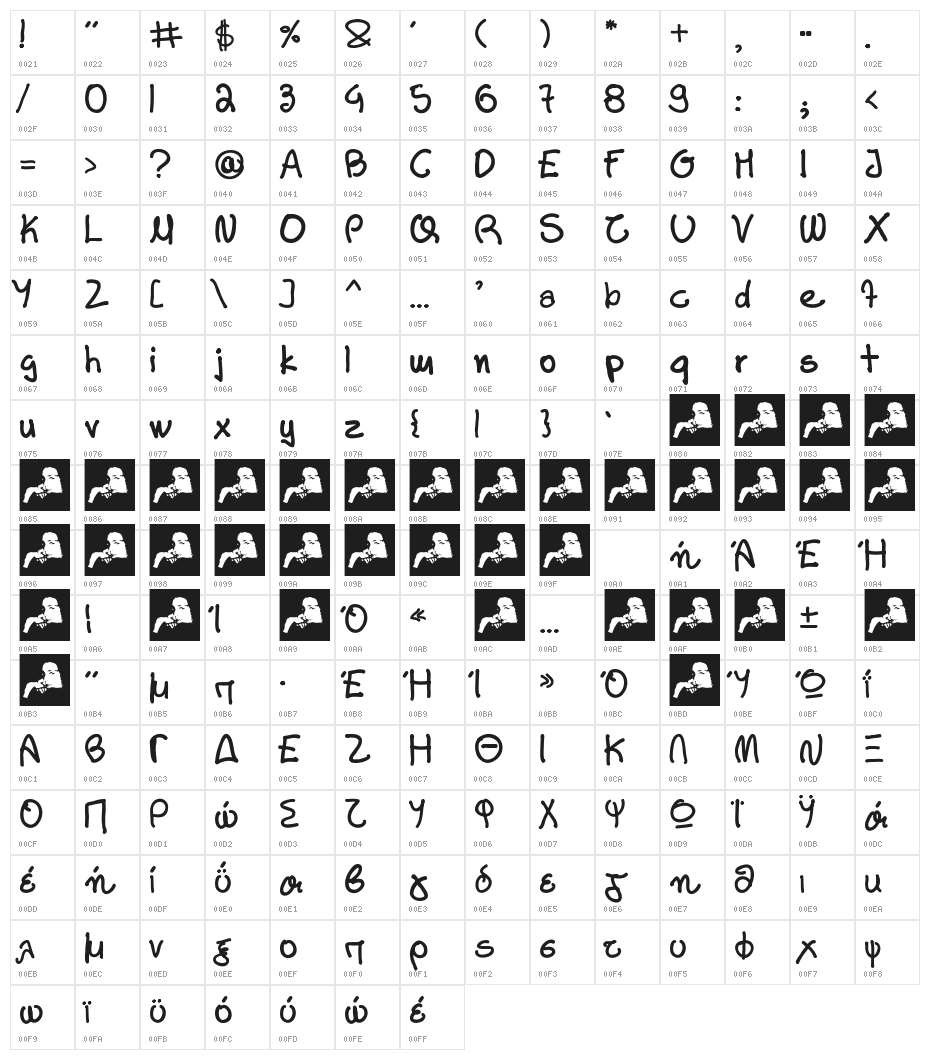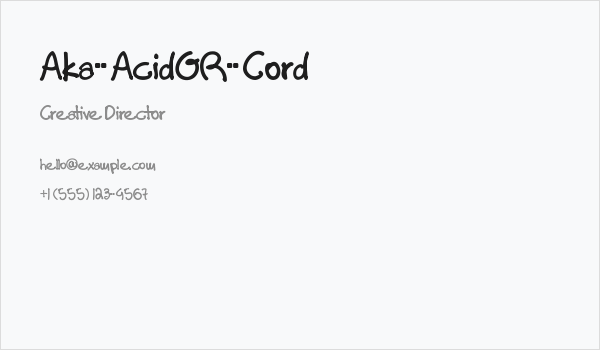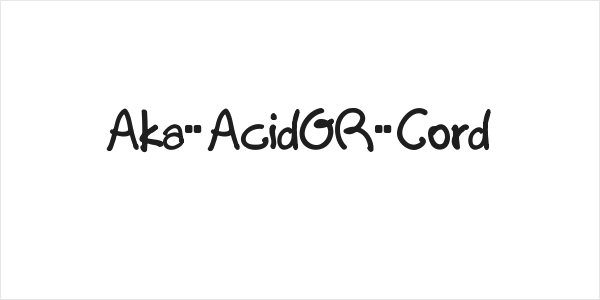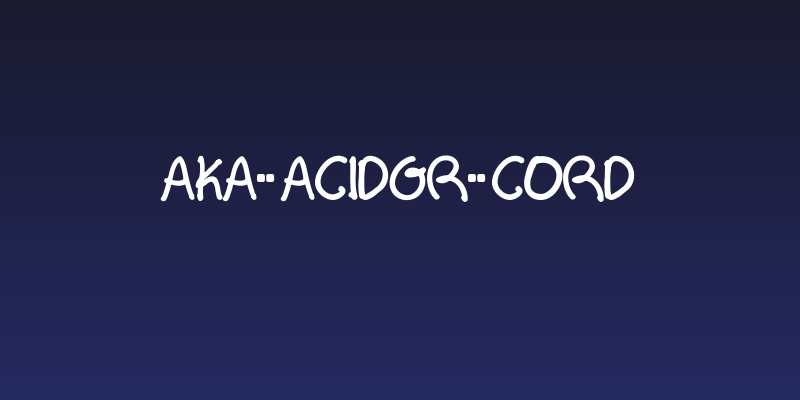
Aka-AcidGR-Cord Font
Aka-AcidGR-Cord Description
This font exhibits a playful and energetic style, characterized by its bold and rounded letterforms. The strokes are thick and consistent, giving it a strong presence on the page. Each character has a slightly irregular shape, adding to its informal and whimsical appearance. The uppercase and lowercase letters maintain a cohesive look, with the lowercase letters mirroring the playful nature of the uppercase. The numbers and special characters follow the same design principles, ensuring uniformity across the font. Its hand-drawn aesthetic makes it suitable for projects that require a personal touch or a sense of fun.
| Overall Style | Playful, Casual |
| Proposed Projects | Ideal for children's books, comic strips, playful branding, and casual invitations. |